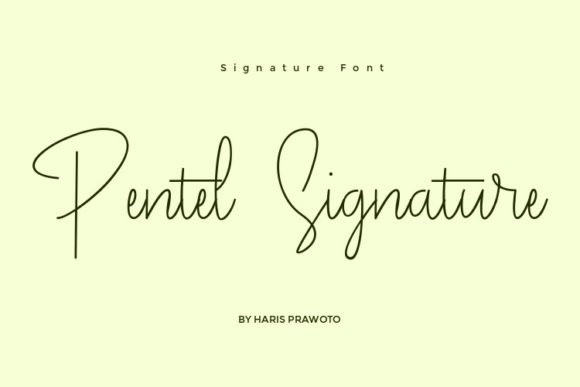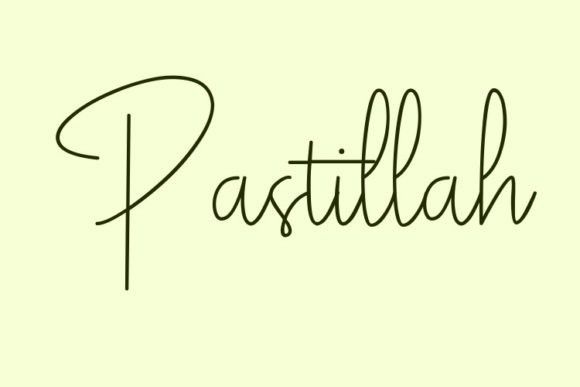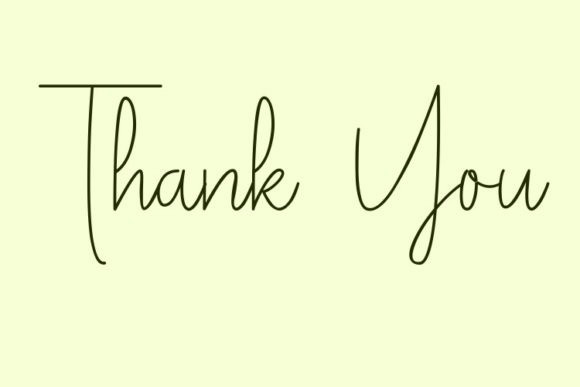
Pentel Signature Typeface
Pentel Signature is a delicate, elegant and flowing handwritten font. It has beautiful and well balanced characters and as a result, it matches a wide pool of designs. Add it to your most creative ideas and notice how it makes them come alive!